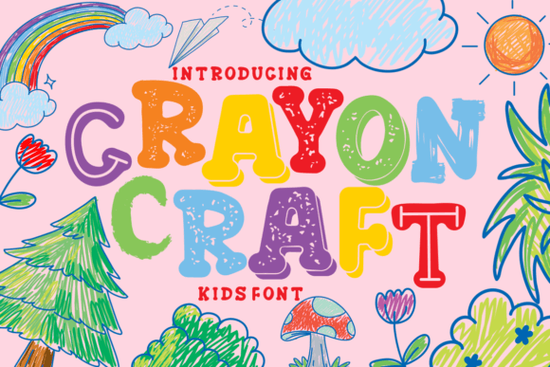
Looking for a font that brings a sense of playful nostalgia to your designs? The Crayon Craft Font is perfect for anyone who wants to add a hand-drawn, childlike charm to their work. Whether you're designing for kids, creating packaging, or working on a creative project, this font offers a unique and authentic feel that stands out.
The Crayon Craft Font captures the essence of childhood creativity with its uneven, hand-drawn appearance. Each letter is designed to mimic the look of crayon and chalk, giving your text a whimsical and personal touch. This makes it ideal for projects that require a warm, inviting, and artistic vibe. It’s not just a font it’s a way to bring back the joy of drawing without the pressure of perfection.
What Makes Crayon Craft Unique?
One of the standout features of the Crayon Craft Font is its variety of styles. This allows you to mix and match different weights and variations to create visually interesting text. Whether you’re working on a logo, a poster, or a children’s book, having multiple options gives you more flexibility and creativity.
The font’s textures and imperfections are intentional. They reflect the natural, unpolished look of a child’s drawing, which adds character and authenticity. This makes it especially well-suited for themes that focus on fun, learning, and imagination. It works great for school-related projects, birthday invitations, and any design that needs a friendly, approachable feel.
Where Can You Use Crayon Craft?
The versatility of the Crayon Craft Font means it can be used in a wide range of applications. It’s popular among designers, crafters, and small businesses looking to add a personal touch to their work. For example, it’s great for creating logos that feel more approachable and less formal. It also works well for branding materials, such as business cards, brochures, and packaging.
Print-on-demand sellers often use this font for t-shirts, mugs, and other products that appeal to parents and children. Its playful style makes it easy to connect with customers who value creativity and nostalgia. Additionally, it’s a favorite among educators and parents who want to create engaging materials for kids.
Design Tips for Using Crayon Craft
When using the Crayon Craft Font, keep in mind that its hand-drawn nature may affect readability. It’s best suited for short phrases, headlines, and titles rather than long blocks of text. Pairing it with a clean, modern font can help balance the design and make it more legible.
Experiment with colors to enhance the font’s playful feel. Bright, pastel shades often work well, as they evoke a sense of fun and creativity. You can also add subtle textures or borders to give your design more depth and interest.
Don’t be afraid to play around with spacing and alignment. Since the font has a casual, uneven look, adjusting these elements can help you achieve the perfect balance between style and functionality.
- Use Crayon Craft for headlines, logos, and short phrases.
- Pair it with a clean, readable font for better contrast.
- Try different color combinations to match your project’s theme.
- Adjust spacing and alignment to improve visual appeal.
Whether you’re a designer, crafter, or small business owner, the Crayon Craft Font offers a fresh and nostalgic way to express your creativity. Its unique style and versatility make it a valuable addition to any design collection. Give it a try and see how it can bring a little bit of childhood magic to your next project.